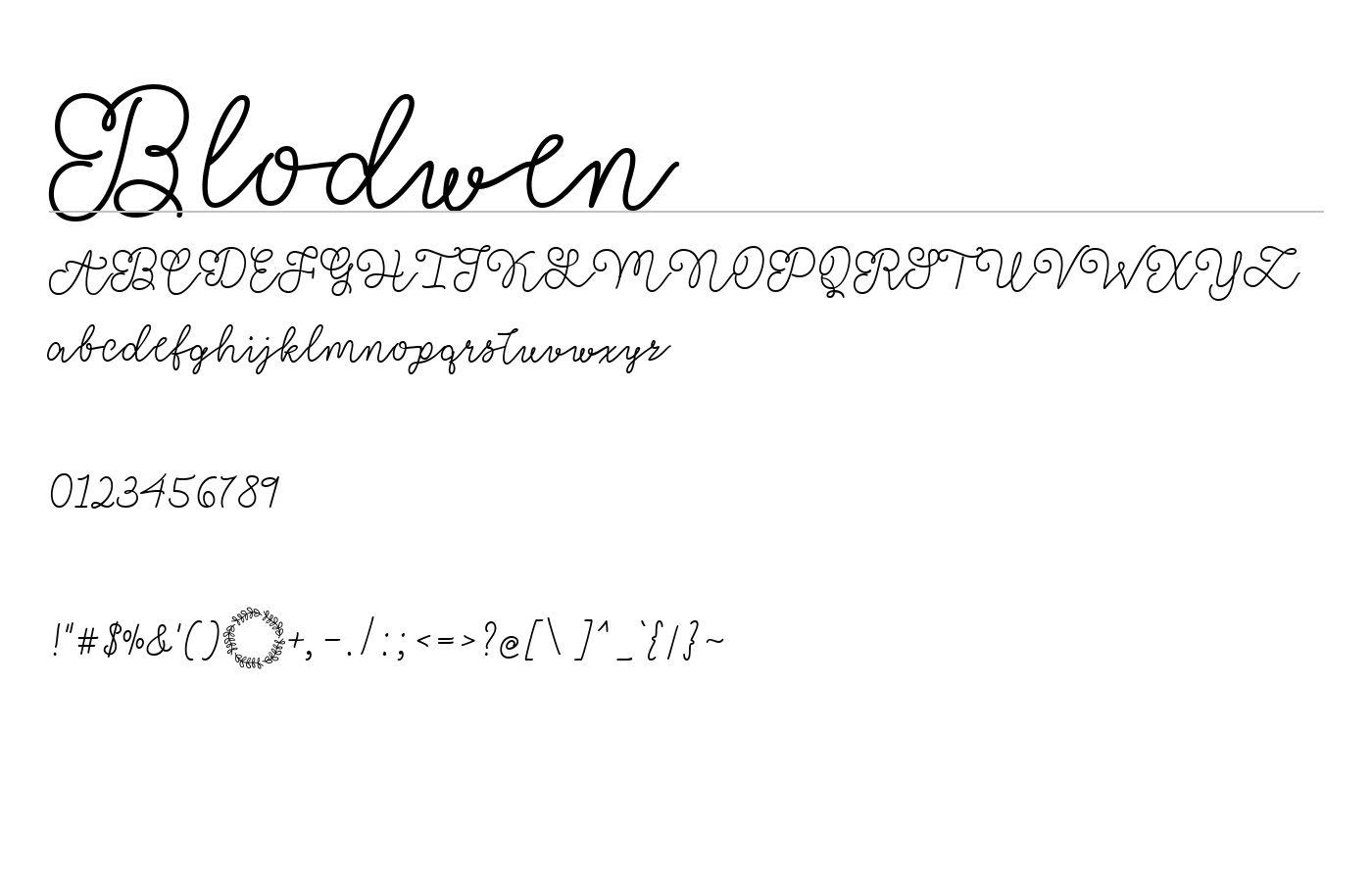
Blodwen is a delicate, elegant script font with a light weight and fine, flowing lines that give it a graceful, handwritten feel. Its thin strokes, subtle loops, and playful curves make it perfect for invitations, branding, and decorative uses where a touch of sophistication and charm is desired. This font works beautifully in contexts that call for a personal, refined touch without overpowering other design elements.
Blodwen Font
About Blodwen Font